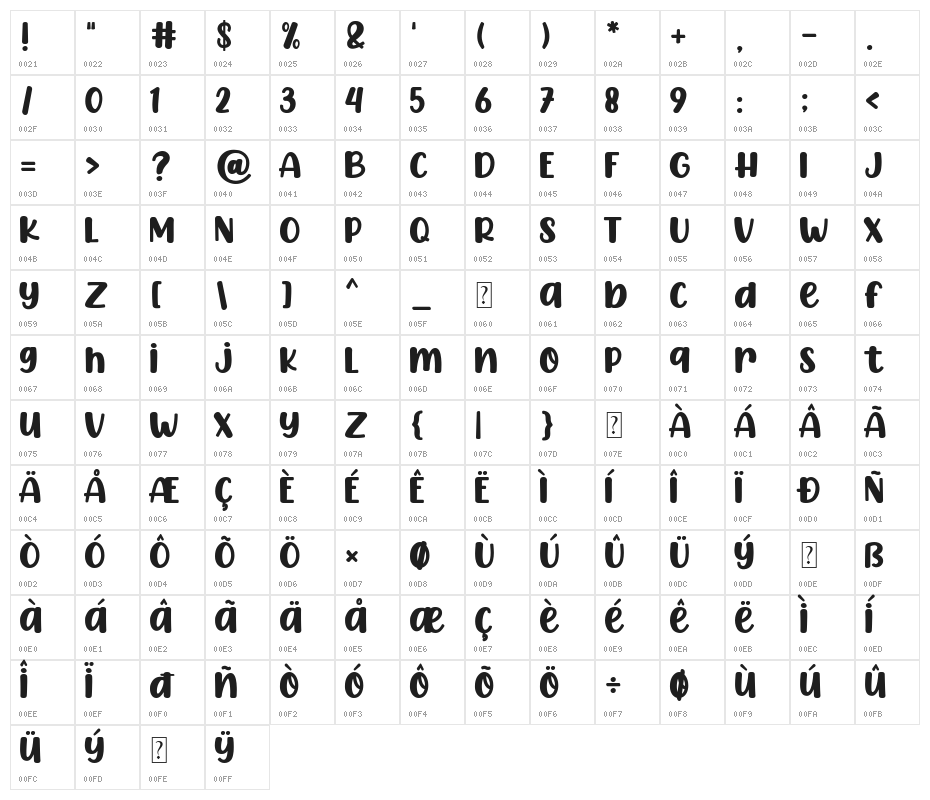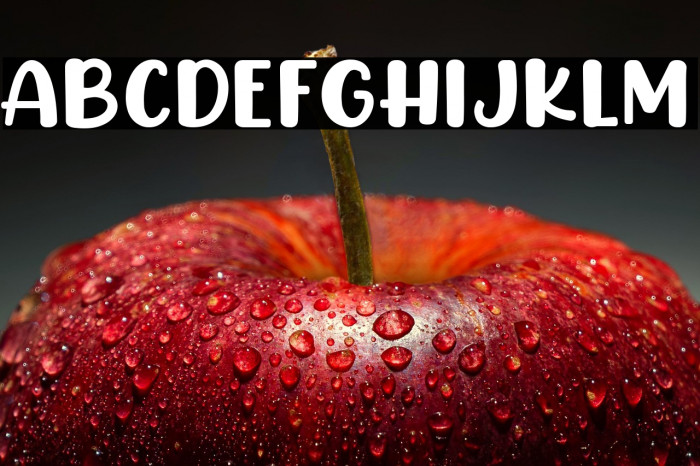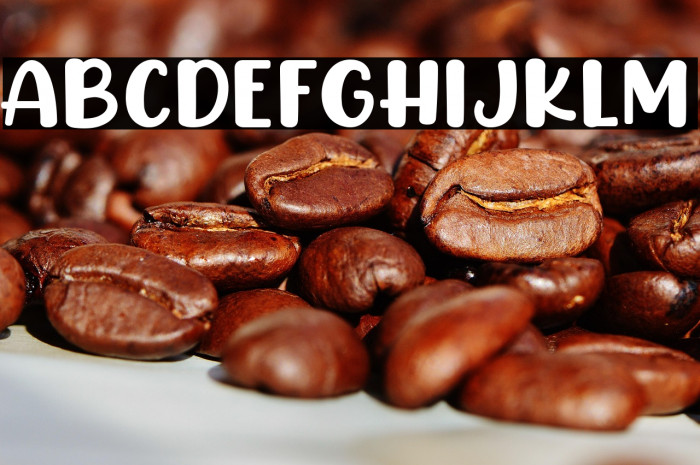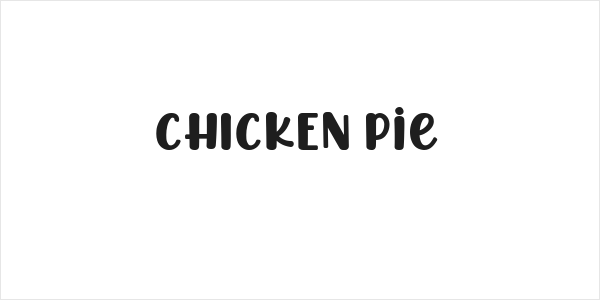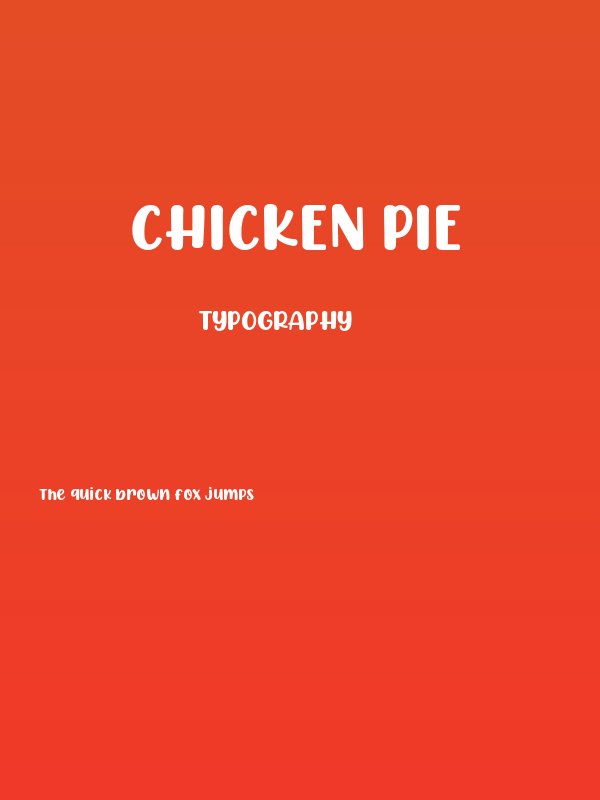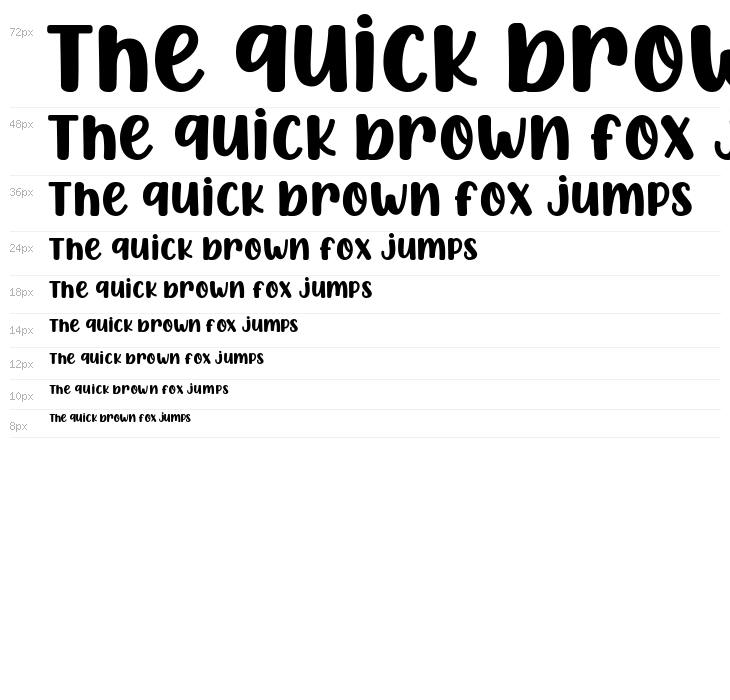
CHICKEN Pie Font
CHICKEN Pie Description
This playful and bold font features rounded, thick strokes that give it a friendly and approachable appearance. The characters are slightly condensed, with a whimsical flair that is evident in the unique curves and loops of the letters. The uppercase and lowercase letters maintain a consistent style, with a smooth flow that enhances readability. Numbers and special characters are designed with the same boldness, ensuring uniformity across all text. This font's distinct personality makes it suitable for projects that require a fun and engaging look.
| Proposed Projects | Ideal for children's books, playful branding, event invitations, and social media graphics. |